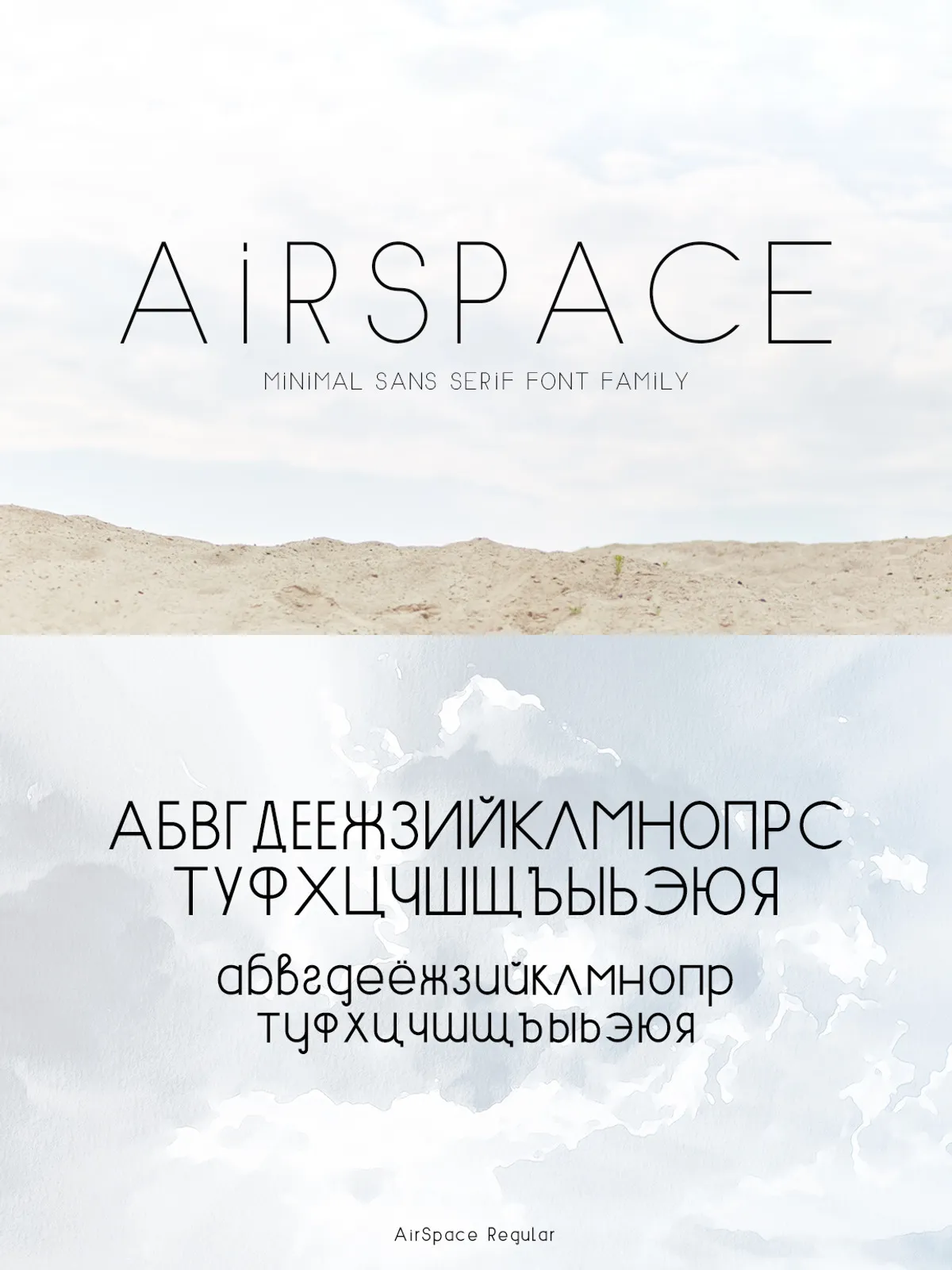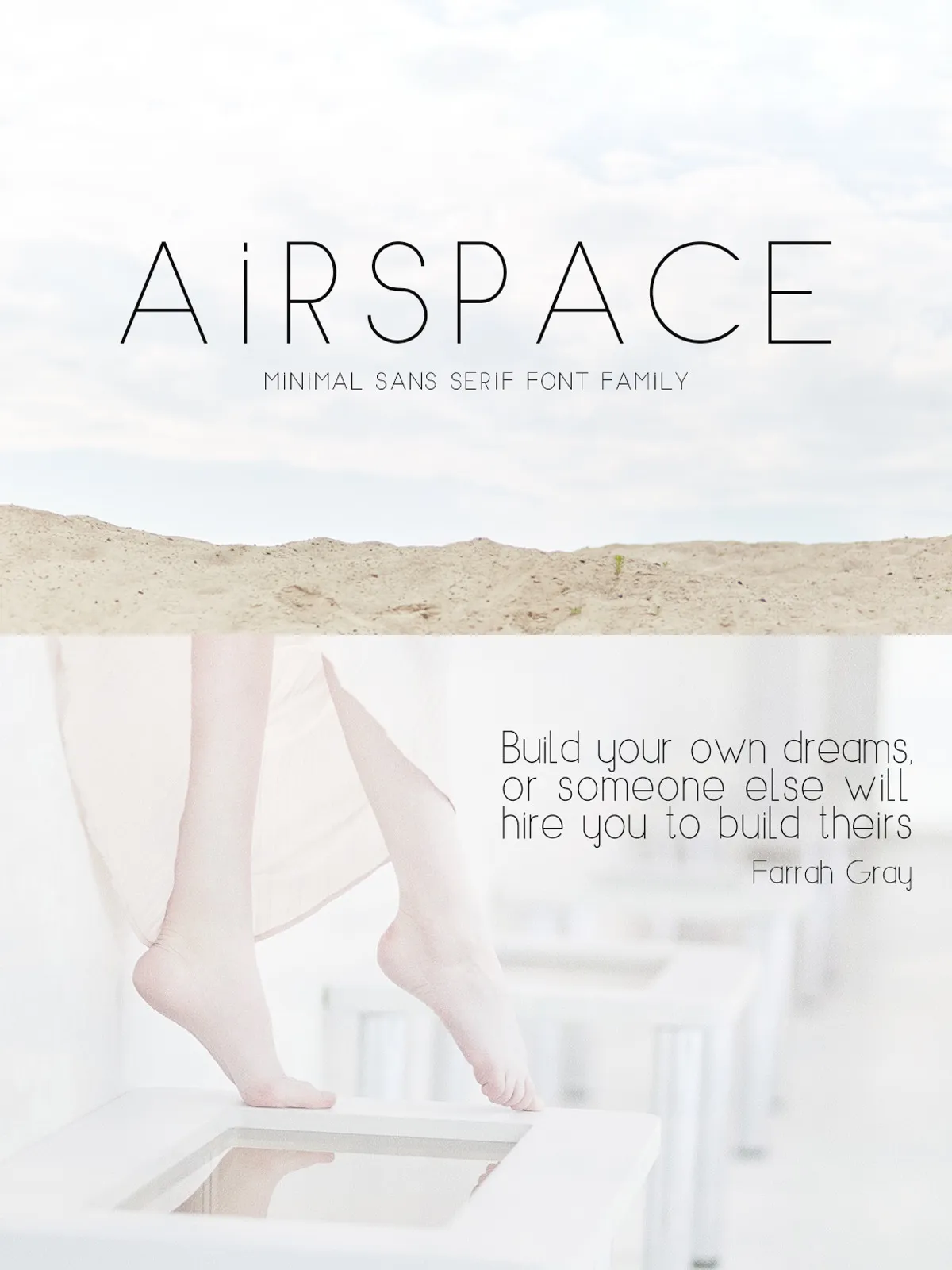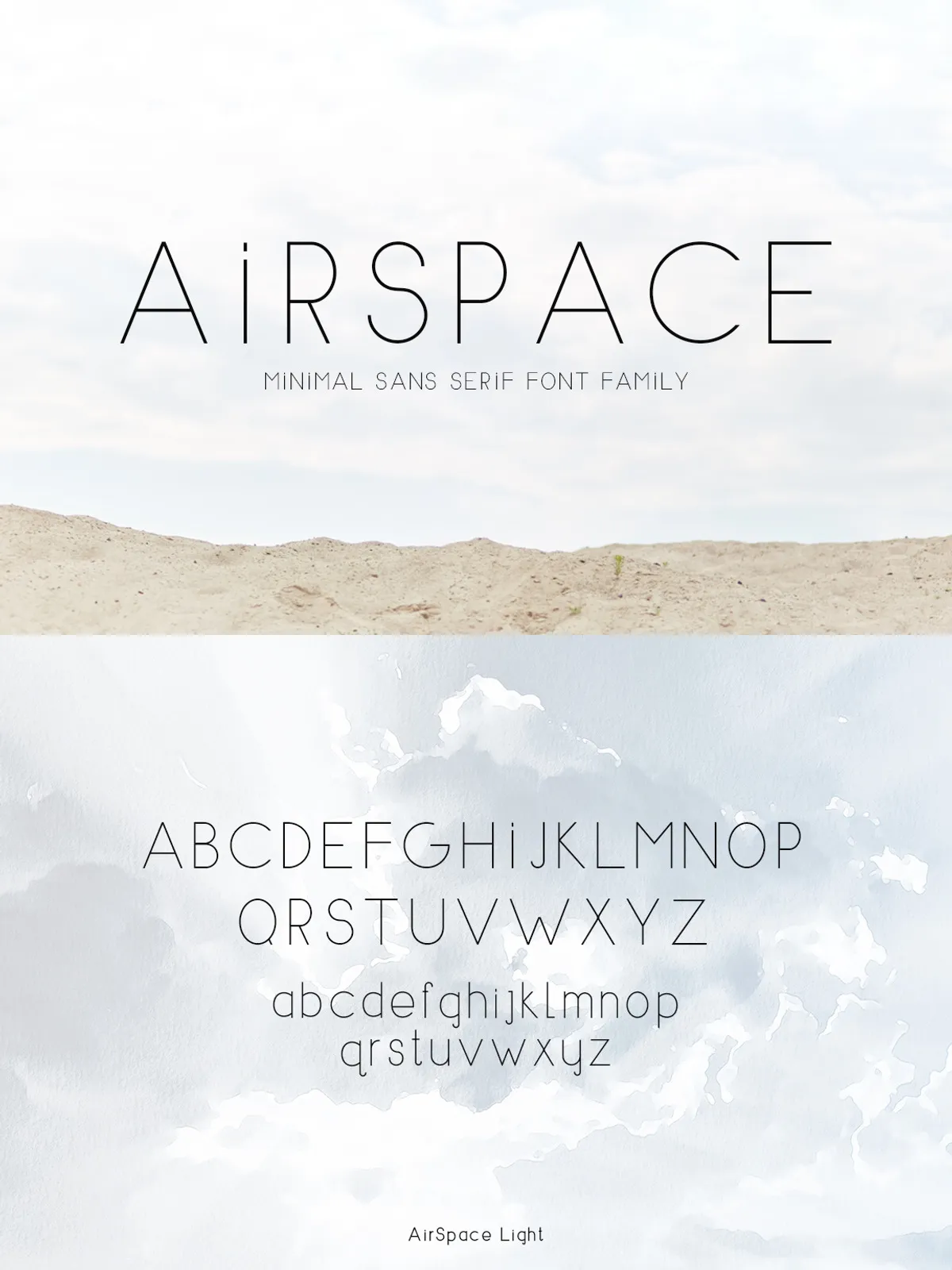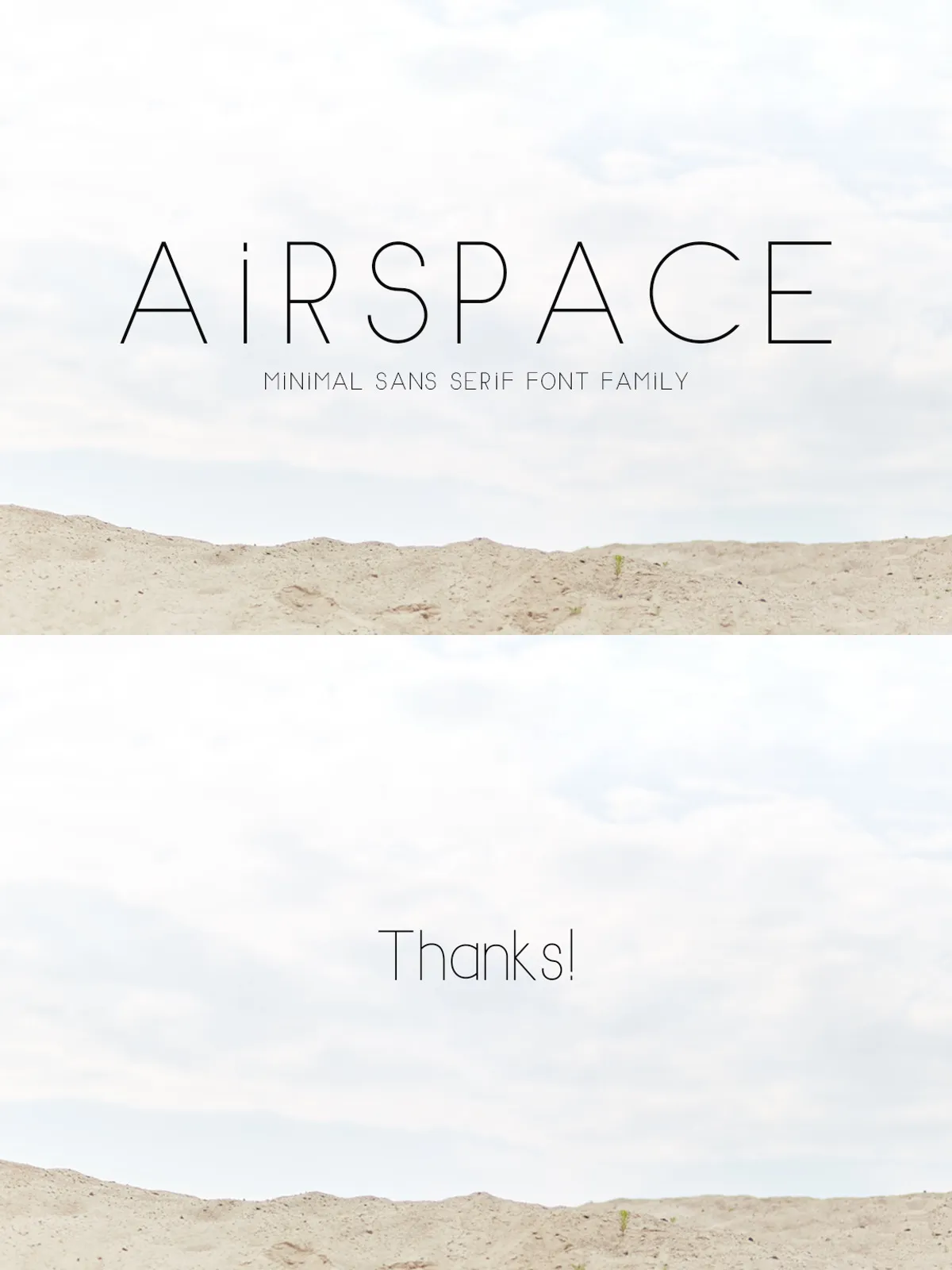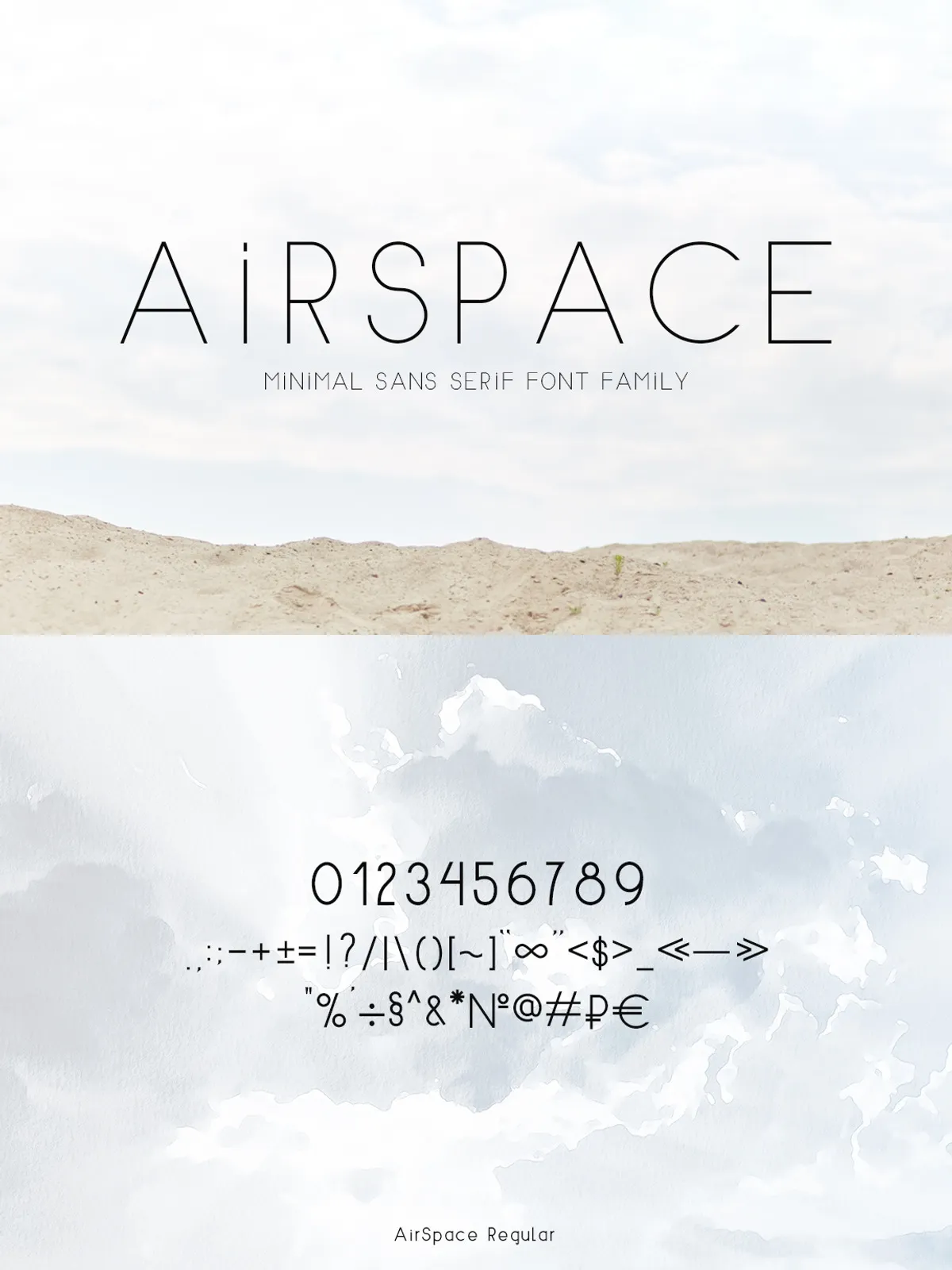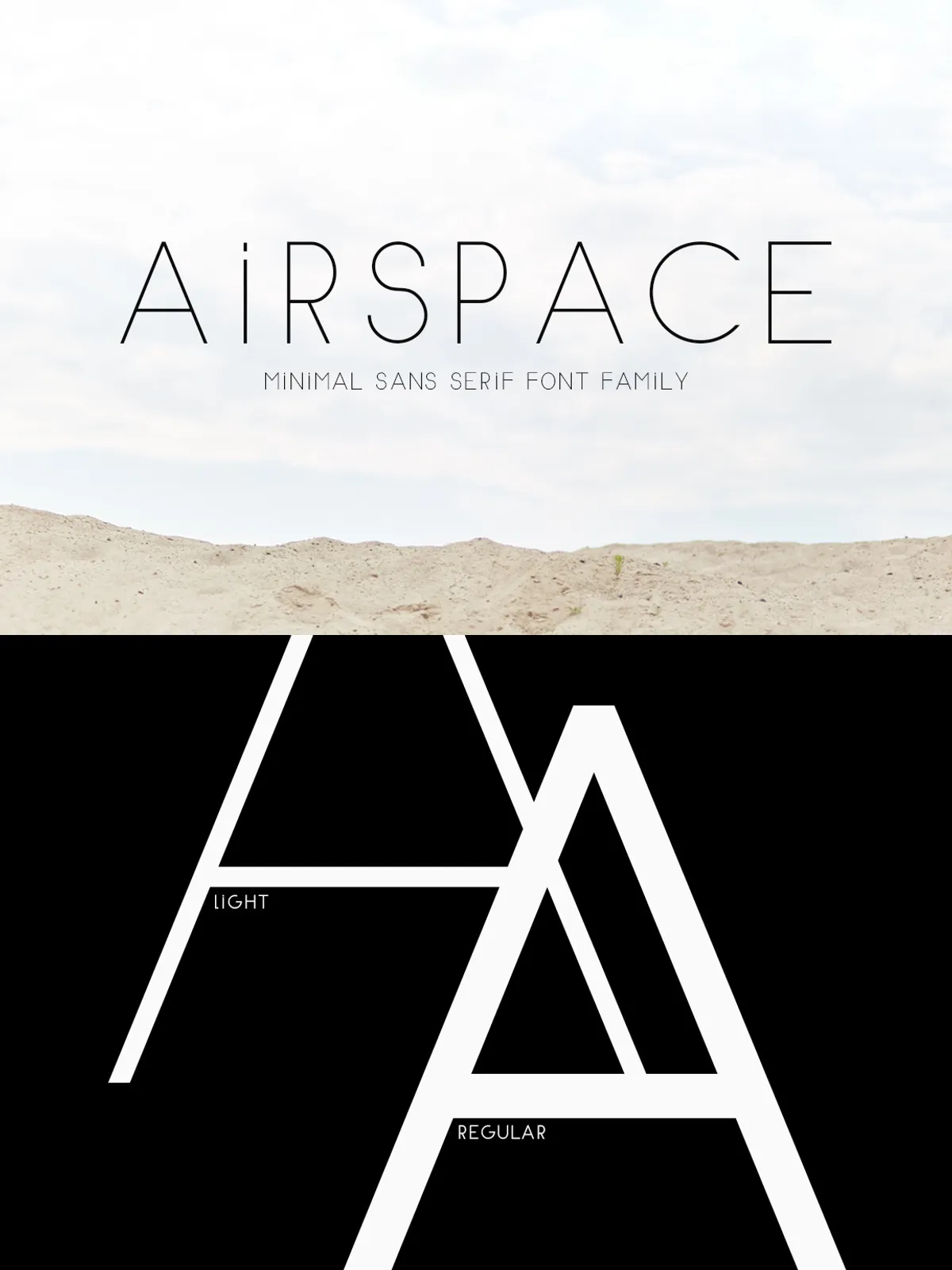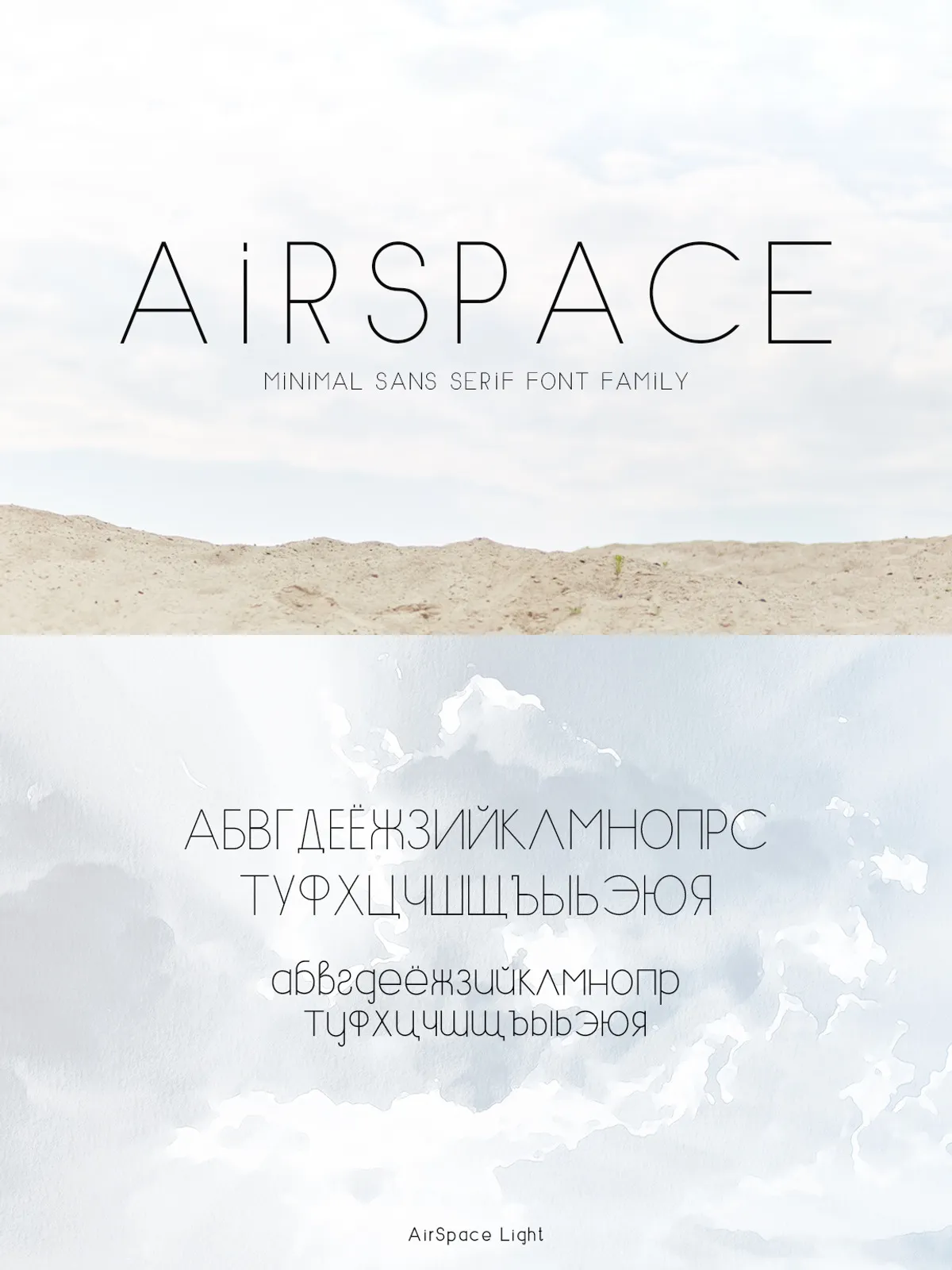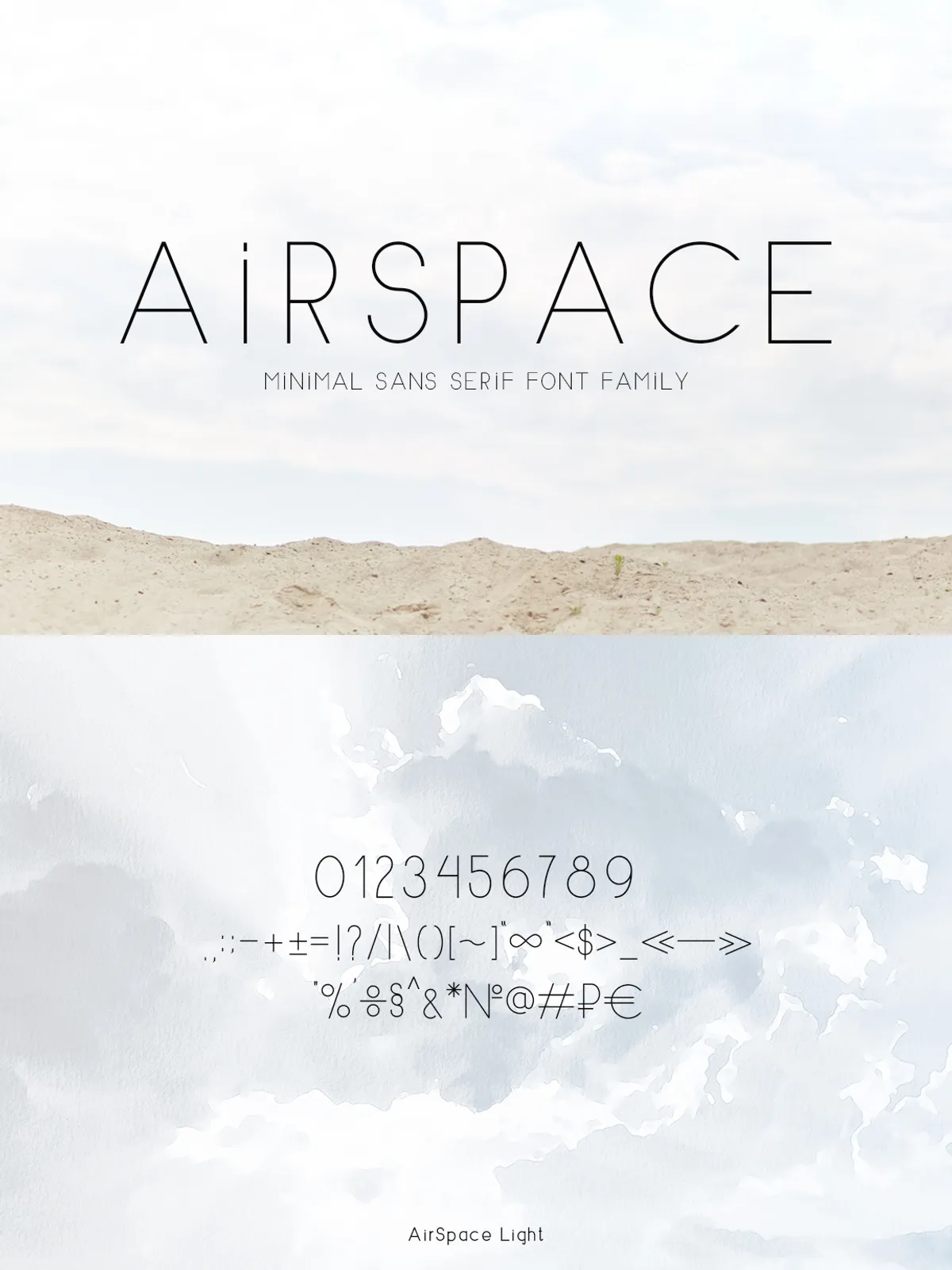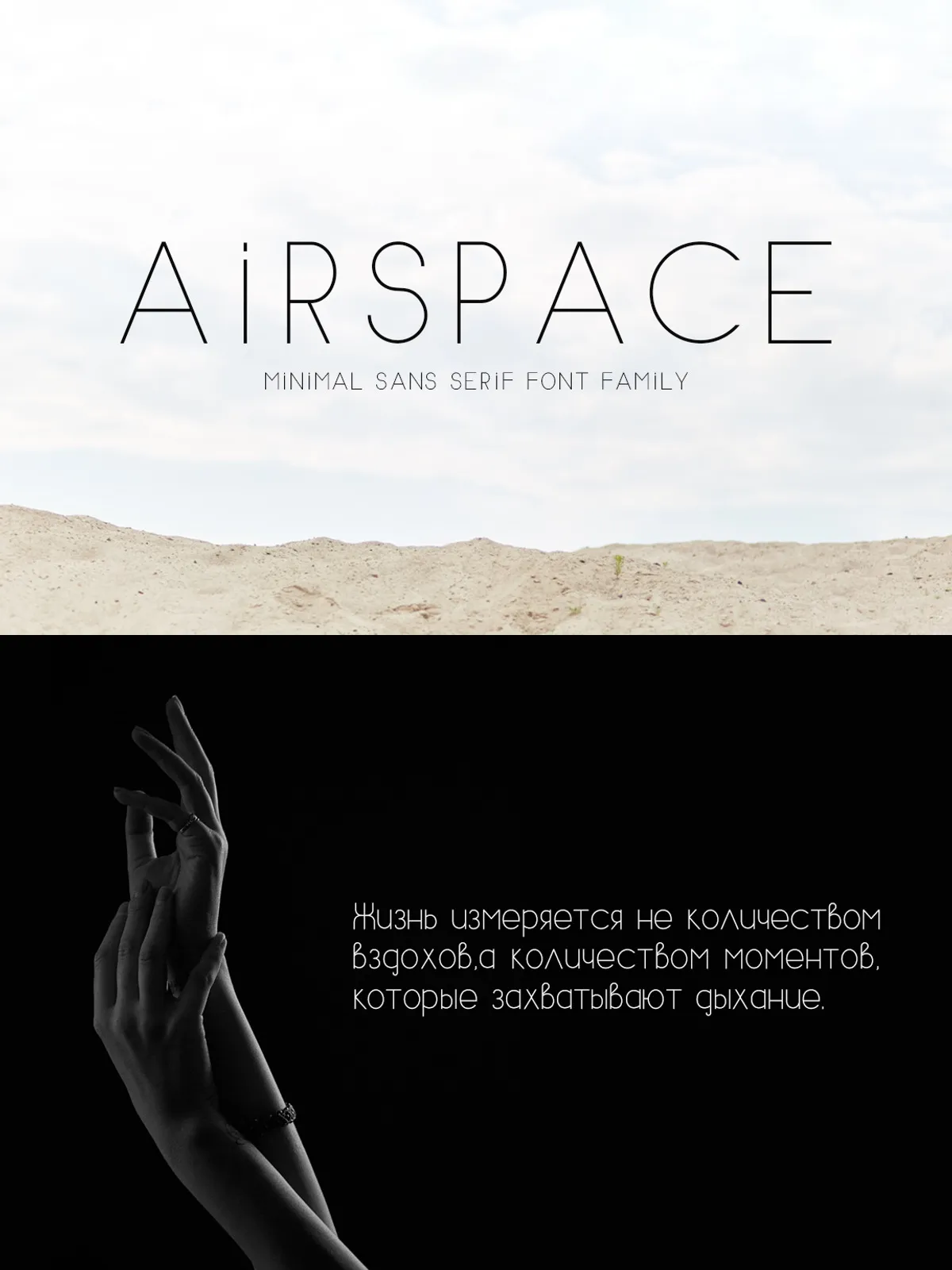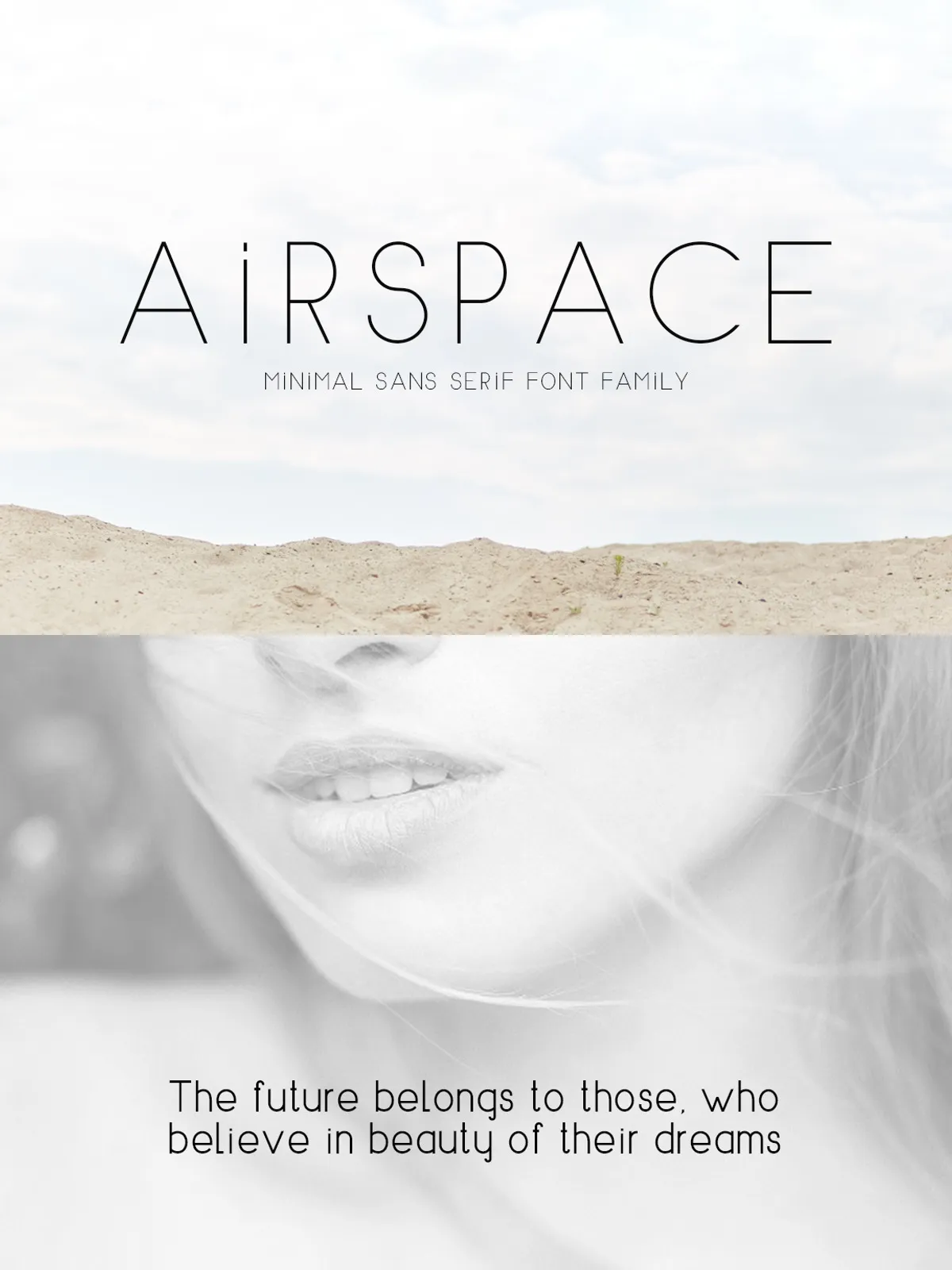
Introducing Airspace Font — a refined, no-frills sans serif typeface built for clarity, balance, and visual sophistication. Engineered with precision, Airspace combines sleek geometry and harmonious proportions to deliver a look that’s simultaneously modern, professional, and effortlessly elegant.
Every letterform is carefully crafted for optimal legibility across sizes and mediums. Whether you’re designing a high-end magazine spread or a minimalist business card, Airspace ensures your message is seen — and remembered.
Universal Design, Global Reach: Fully Multilingual Support
Airspace isn’t just clean — it’s inclusive. This typeface supports both Roman and Cyrillic character sets, making it a powerful tool for international projects, multilingual publications, and global branding campaigns.
Complete Character Set Includes:
- Uppercase and lowercase Latin letters
- Cyrillic alphabet for Russian, Ukrainian, Bulgarian, and other Slavic languages
- Full numerals (0–9)
- Standard punctuation (.,!?:;)
- Mathematical symbols, currency signs, and special characters
- Proper ligatures and stylistic alternates for enhanced typographic control
No more switching fonts just to accommodate different scripts. Airspace speaks multiple languages — both visually and functionally.
Perfect for a Wide Range of Creative Projects
Airspace’s simplicity doesn’t limit its versatility — it expands it. This font thrives in any context where clarity, calm, and sophistication are key:
• Magazine & Editorial Layouts
Use Airspace for headlines, captions, and body text to create a refined, magazine-ready aesthetic. Its even stroke weight and neutral personality let your content shine.
• Invitations & Stationery
Elevate wedding, event, or corporate invitations with Airspace’s subtle elegance. Its balanced weight and open letterforms look stunning in both digital and print formats.
• Logo & Brand Identity Design
Build a strong, modern brand with a clean, memorable logo. Airspace works beautifully in both wordmarks and logotypes, conveying professionalism without overstatement.
• Digital & Print Artwork
- Standard and alternate glyphs included
- Supports advanced typographic features like ligatures and stylistic sets